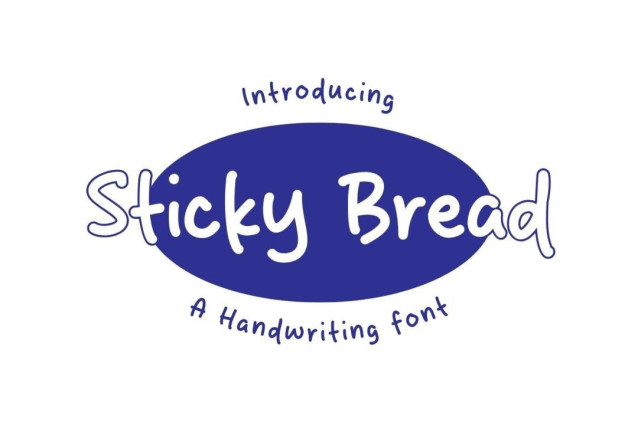
Sticky Bread Font
Sticky Bread Font is a simple and friendly handwritten font. Its natural and unique style makes it incredibly fitting to a large pool of designs. The only limit is your imagination!